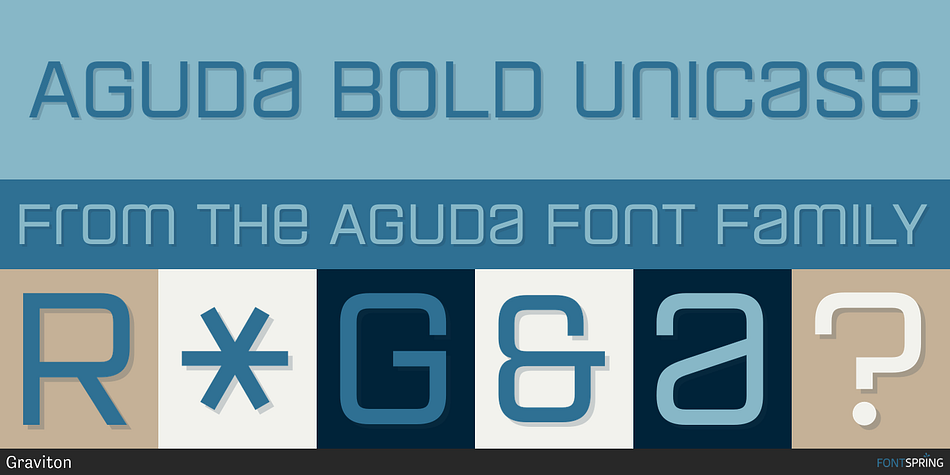
Aguda Bold Unicase
Designed by Pablo Balcells, Aguda is a sans serif font family. This typeface has eight styles and was published by Graviton.
Aguda font family has been designed for Graviton Font Foundry by Pablo Balcells in 2014. It is a modular, geometric typeface which has been conceived to be primarily a display typeface, but given its clarity it can also be used for composing short and intermediate length texts.
Aguda consists of 8 weights. Each contains small caps and several alternate characters as well as am additional unicase weight.